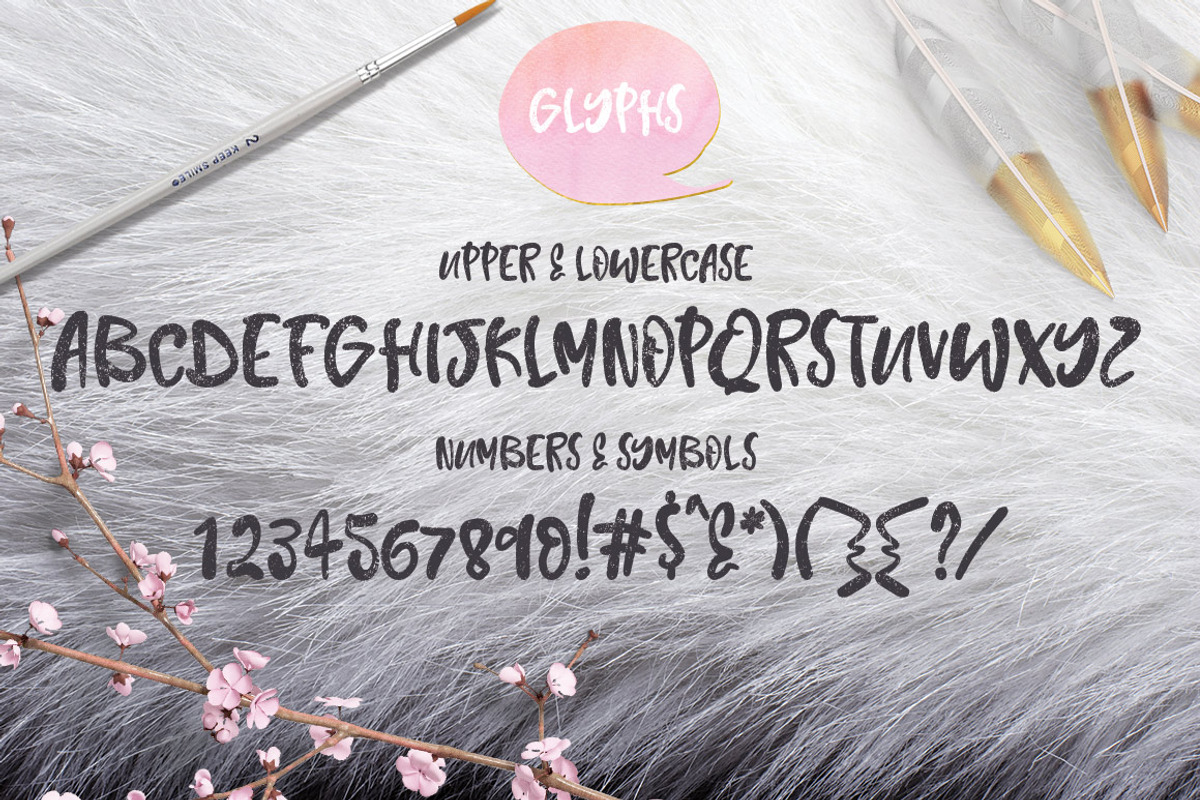
Rabbit Fur Font Typeface
Rabbit Fur Font Typeface by Creativeqube Design is a font selected for branding, posters, packaging, typography.
- A trendy textured rounded uppercase font.
Why Rabbit Fur Font Typeface is worth a look
Rabbit Fur Font Typeface by Creativeqube Design fits naturally into Branding, posters, packaging, typography.